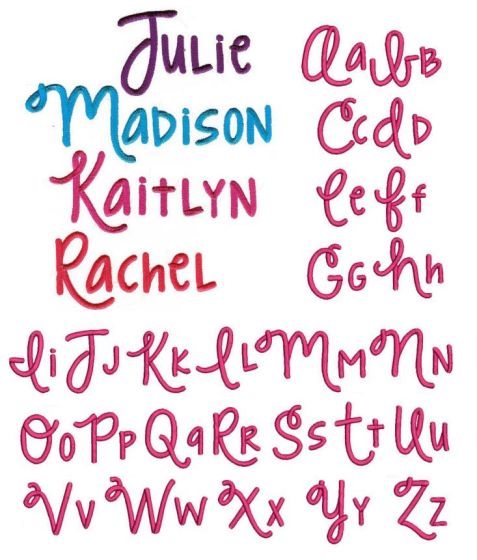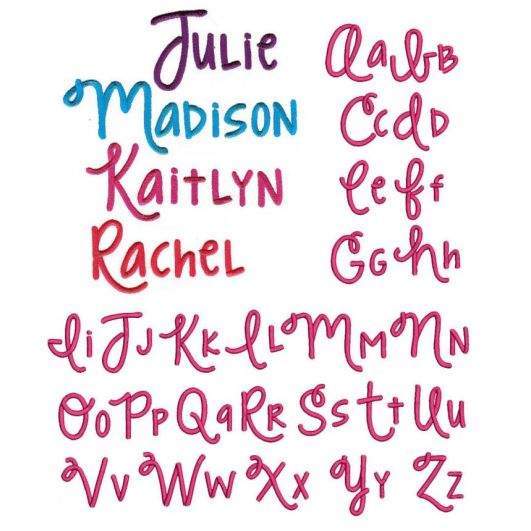
Strawberry Limeade Satin Stitch Embroidery Font
A fun, clean and whimsical font. Great for personalizing your projects!  All of our font alphabets are 100% manually digitized to bring you maximum stitch quality.